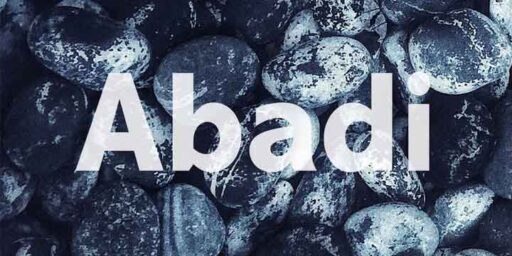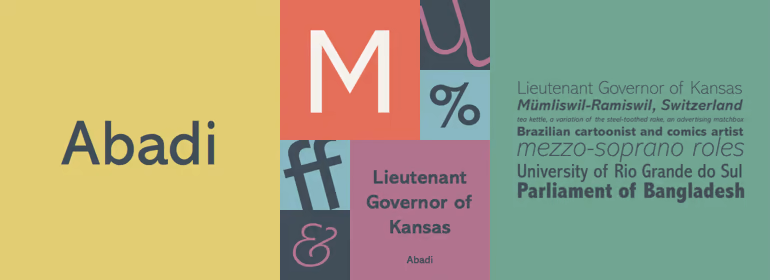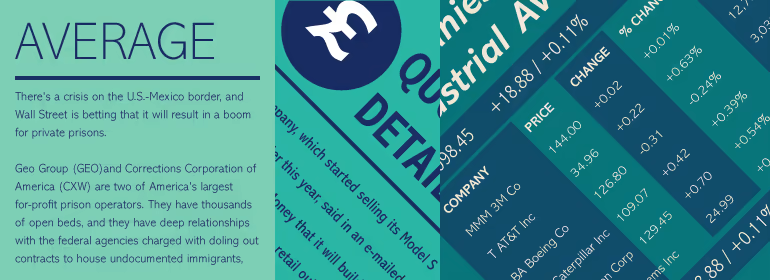
Abadi Font
Abadi is a clean and modern sans serif font. Malaysian designer Ong ChongWah created it with a perfect balance between humanist and geometric styles. It sits between Gill Sans and Helvetica, offering a friendly and legible look.
Its generous ‘x’ height improves readability, making it great for both text and display. The italic version complements the roman style but also works well on its own.
With a variety of weights and widths, Abadi fits many design needs. Use it for magazines, newspapers, packaging, ads, or even television graphics.
Abadi Font is a Sans Serif Fonts font that brings a professional and versatile look to your projects. Abadi is a clean and modern sans serif font.